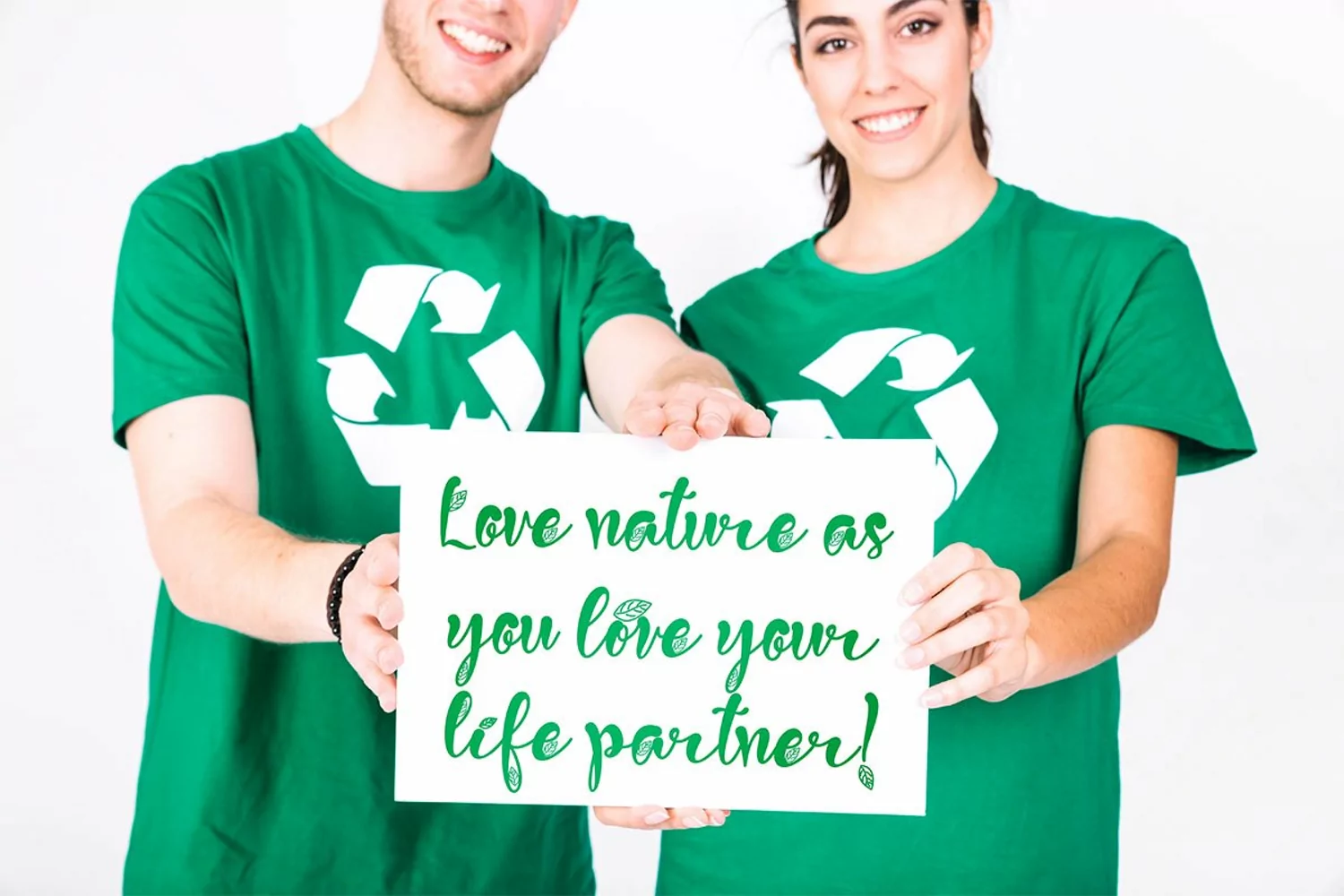
"Green Love" is a beautiful, unique and elegant font. This font blends natural and loving. "Green Love" is very easy to use because it has been designed to make it easy to use. This font is perfect for Spring, earth day, valentine, mother day, father day, summer, wedding, invitations, posters, logos, and various other projects.